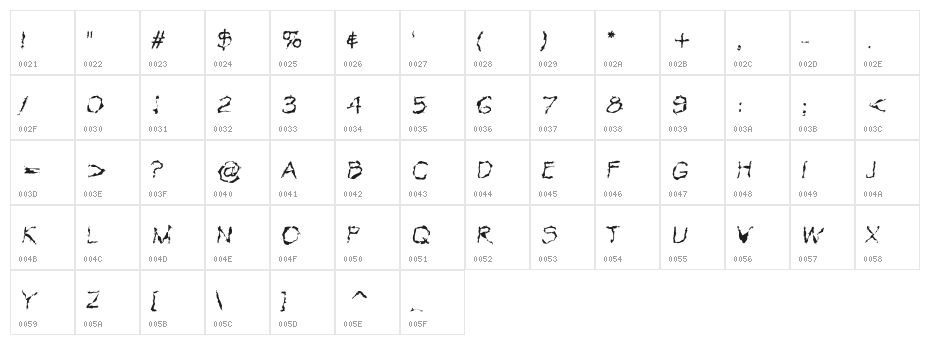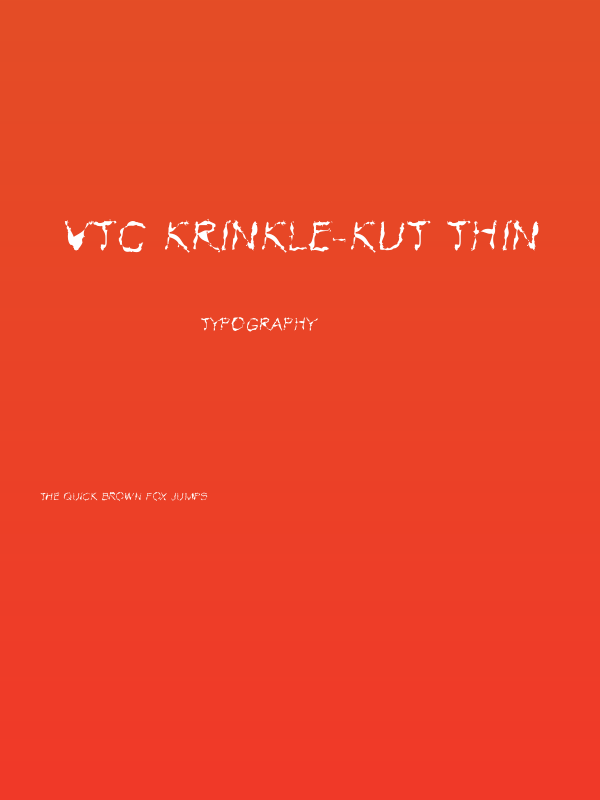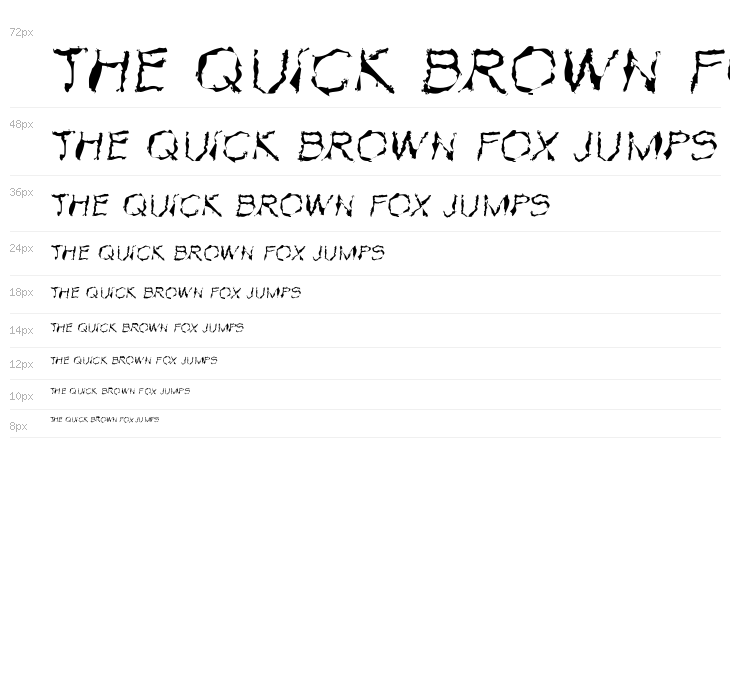
VTC Krinkle-Kut Thin Font
VTC Krinkle-Kut Thin Description
This font features a highly distressed and irregular design, giving it a unique, edgy appearance. The characters appear as if they have been cut or torn, with jagged edges and uneven surfaces. This creates a dynamic and chaotic visual style that stands out. The uppercase and lowercase letters maintain this rugged texture, while the numbers and special characters follow suit, ensuring consistency across the entire typeface. The font's distinct style makes it suitable for projects that require a bold and unconventional look.
| Use Case | Logos, Posters, Headlines |
| Proposed Projects | Ideal for album covers, horror movie posters, edgy branding, or any project needing a striking, unconventional typeface. |